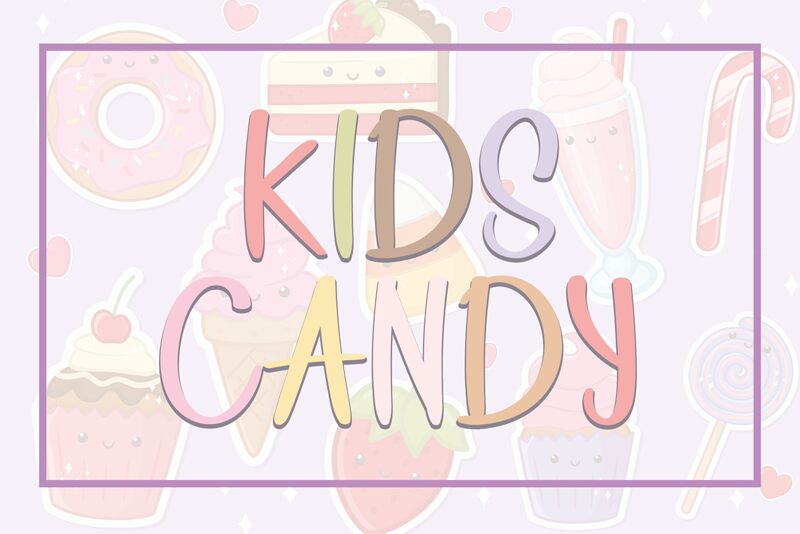
Kids Candy
Kids Candy, designed by Etik Fatimah, is a delightful and playful handwritten font that exudes a sense of joy and whimsy.
With its semi-light weight, this font is perfect for creating captivating designs for children's books, birthday invitations, party decorations, and toy packaging. Its fun and energetic style adds a touch of innocence and charm to any project, making it an ideal choice for nursery rhymes, educational materials, or even animated videos.
Let Kids Candy bring your creative ideas to life with its vibrant strokes and cheerful personality.